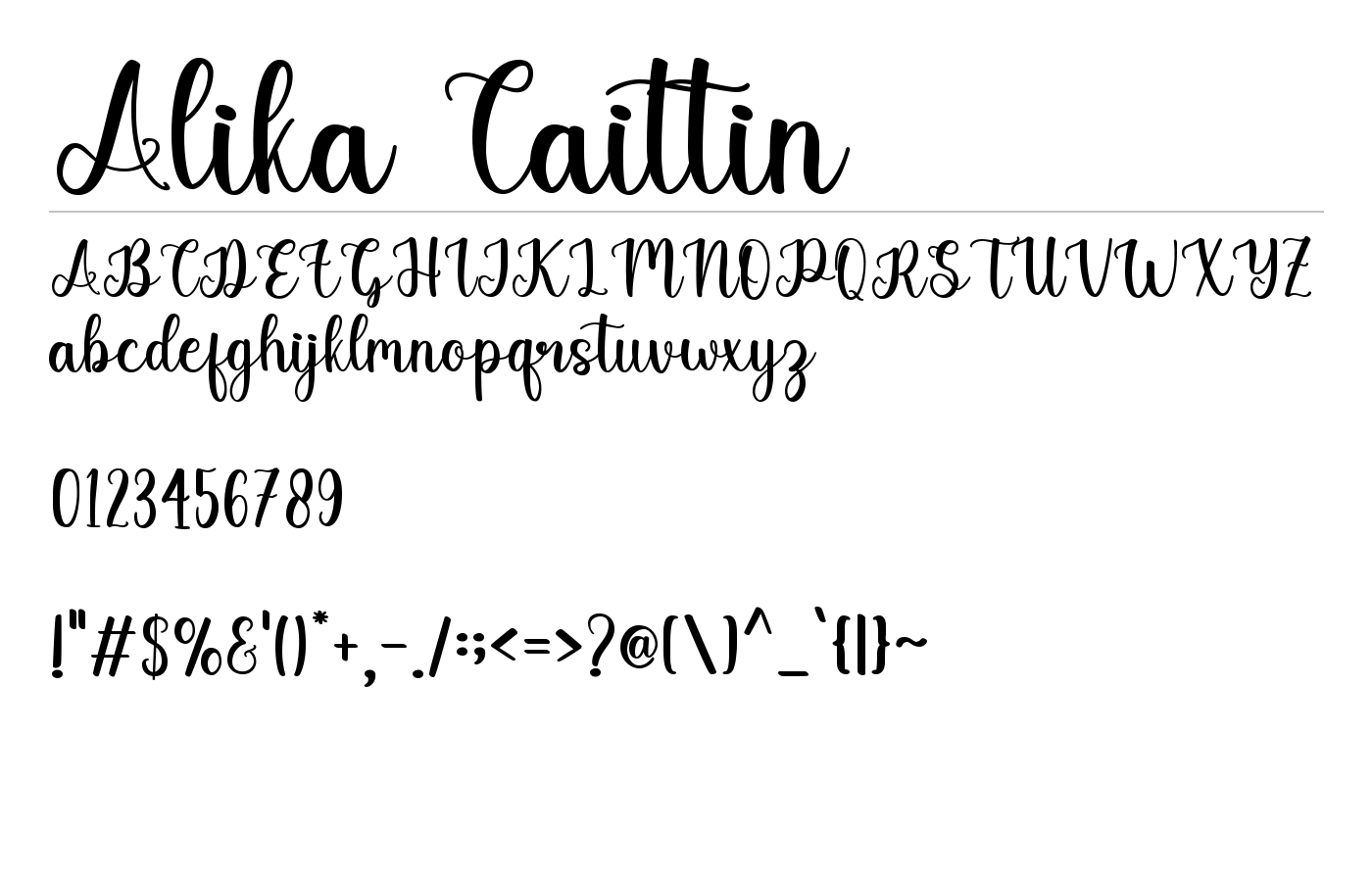
Alika Caittin is a charming, script-style font with a friendly and elegant feel. Its smooth, flowing strokes and medium contrast create a handcrafted look that is perfect for invitations, logos, and branding that seek a personal, stylish touch. This font brings warmth and sophistication to designs while maintaining readability in both uppercase and lowercase.
Alika Caittin Font
About Alika Caittin Font